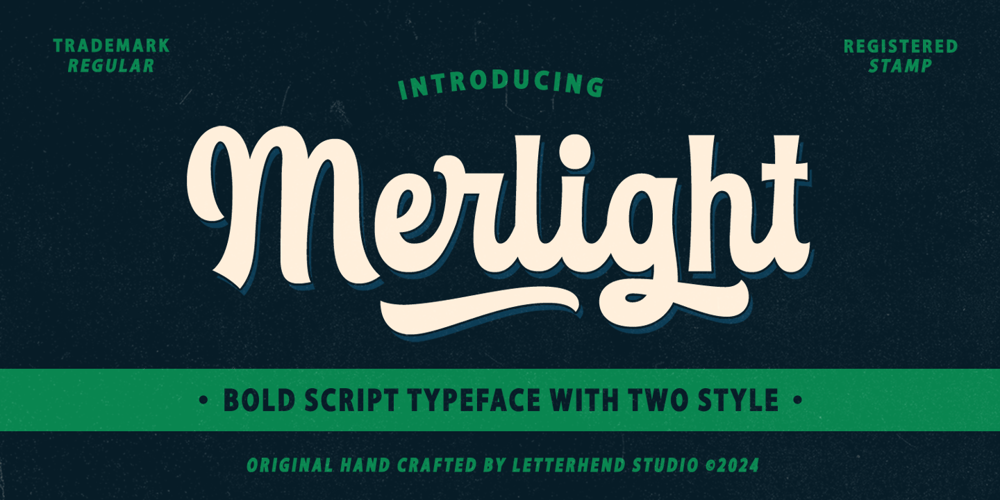
Merlight Font Family was designed by Hendry Juanda and published by Letterhend. Merlight contains 2 styles and family package options. Introducing, Merlight – a standout bold script with a touch of vintage looks. This type of font perfectly made to be applied especially in logo, headline, signage and the other various formal forms such as invitations, labels, logos, magazines, books, greeting / wedding cards, packaging, fashion, make up, stationery, novels, labels or any type of advertising purpose.Features : Uppercase & lowercase Numbers and punctuation Alternates & Ligatures Multilingual Support PUA encoded